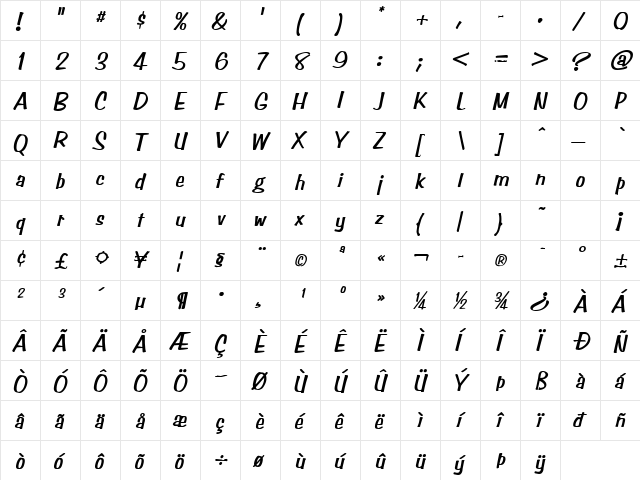
Simpson BoldItalic
Design Context for Simpson Typeface
Simpson is a composed and adaptable typeface that performs quietly and consistently across a wide range of design contexts. Its italic angle brings a sense of urgency and motion to the letterforms. The heavy weight commands attention and anchors typographic hierarchies.
Pro Tip: Try Simpson for annotation and caption copy alongside an upright companion — the contrast in angle creates a dynamic but ordered typographic system.